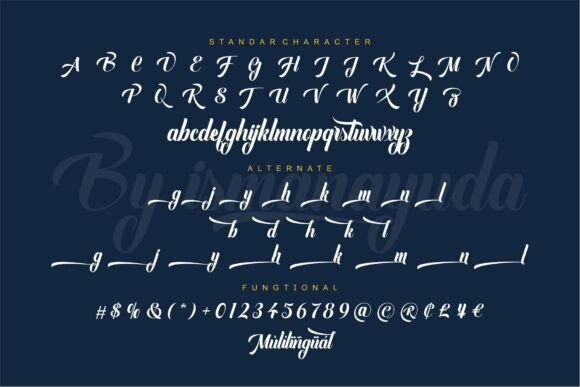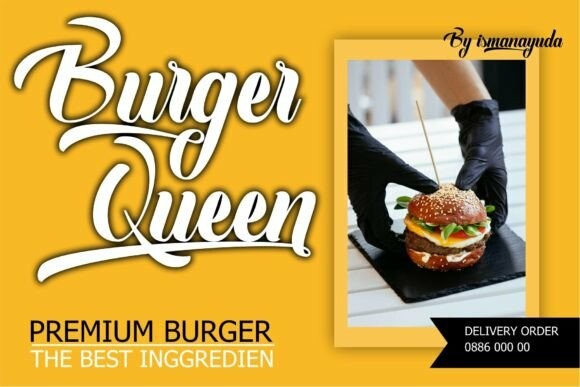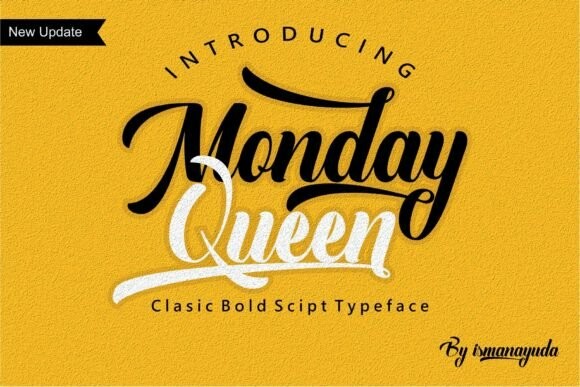
Monday Queen Font
Monday Queen Font is a font that flows script but gives a classic nuance so that it can bring out its own uniqueness. It has several alternatives to make it easier to use, be it for displays, posters, or clothing company needs.